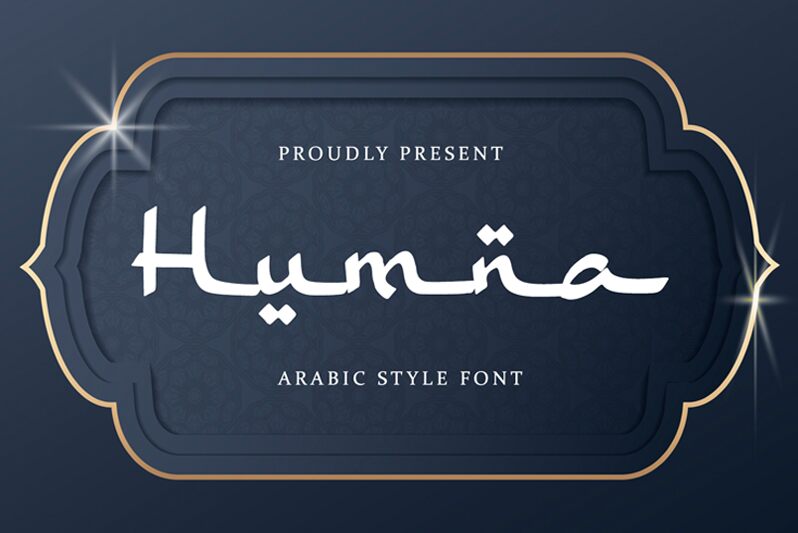
Humna
Humna, the captivating font created by Alpaprana Studio, effortlessly blends the allure of faux-Arabic script with an expanded width for a bold, distinctive aesthetic. This font's striking visual presence commands attention, drawing the eye with its elegant calligraphic curves and refined, yet expressive strokes. The expanded width lends an air of grandeur and authority, making Humna an ideal choice for a range of design applications, from high-end branding to impactful editorial layouts. Its versatility shines through, seamlessly transitioning between formal and contemporary settings, imbuing any project with a sense of refined sophistication and cultural appreciation.
The font's faux-Arabic influence adds a layer of intrigue, inviting viewers to explore its nuanced details and appreciate the artistry behind its creation. Humna's unique character can elevate the visual identity of luxury products, captivating event invitations, or bold typographic statements, making it a versatile tool for designers seeking to create memorable and impactful designs.